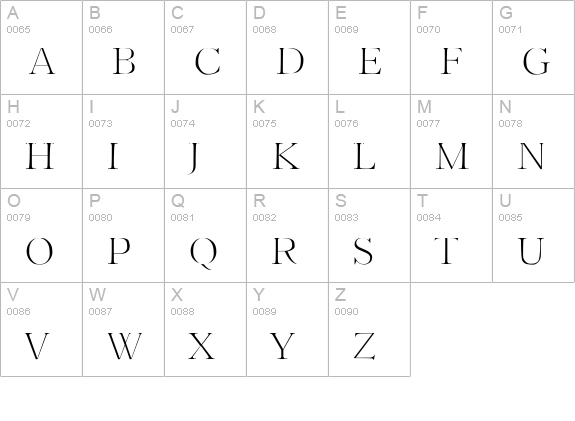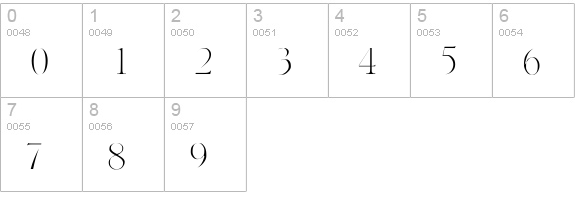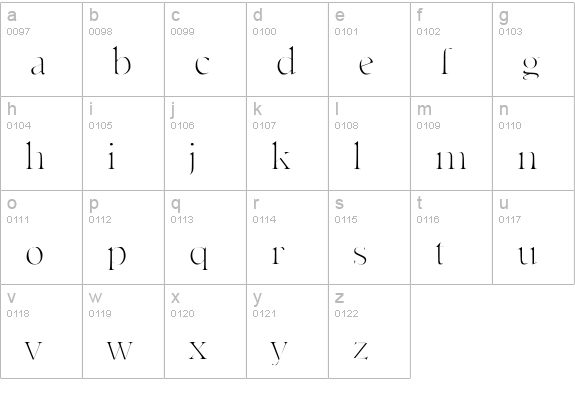
Slimfit SF Font Details
Slimfit SF is a sleek and sophisticated font that exudes modern elegance. Its slender and streamlined design captures the essence of contemporary style, making it perfect for any project that requires a touch of sophistication. Whether it's a logo, a headline, or a poster, Slimfit SF will bring a sense of refinement and class to your designs. This font's slender letterforms are meticulously crafted with precision and attention to detail. Each curve and line is perfectly balanced, resulting in a harmonious and visually pleasing composition. The slim proportions of Slimfit SF make it highly versatile, allowing it to be used in a wide range of design applications. One of the best things about Slimfit SF is that it is freely available to download at FontsMarket.com. This means that you can easily incorporate this stunning font into your designs without having to worry about any licensing restrictions or fees. It's a great opportunity to add a touch of sophistication to your projects without breaking the bank. With its clean and minimalist aesthetic, Slimfit SF is sure to make a lasting impression. Its versatility and timeless appeal make it a go-to choice for designers who want to create modern and elegant designs. So why wait? Download Slimfit SF today and elevate your designs to new heights of sophistication.